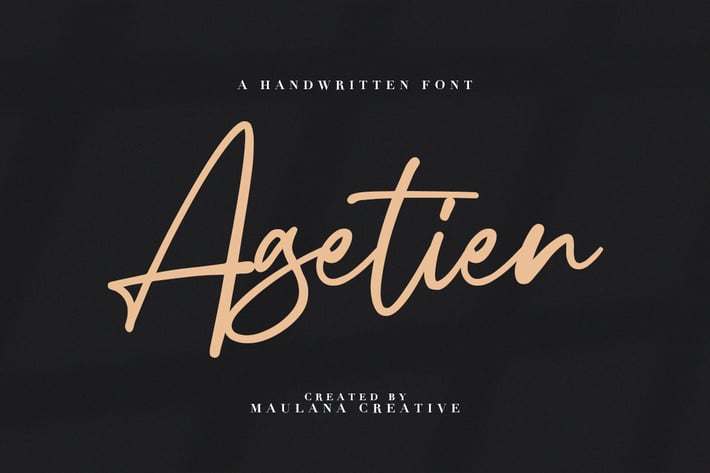
Agetien - Handwritten Font
Give your designs an authentic handcrafted feel. "Agetien" is perfectly suited to signature, stationery, logo, typography quotes, magazine or book cover, website header, clothing, branding, packaging design and more. Included Ligatures.